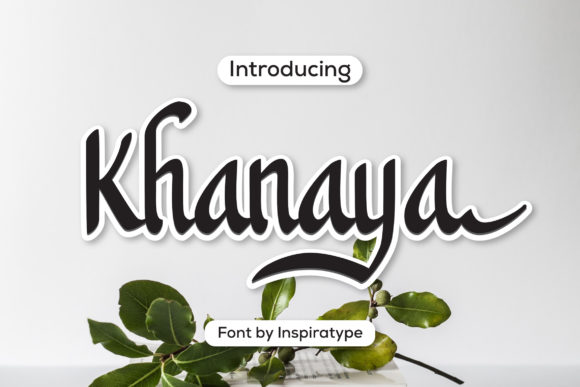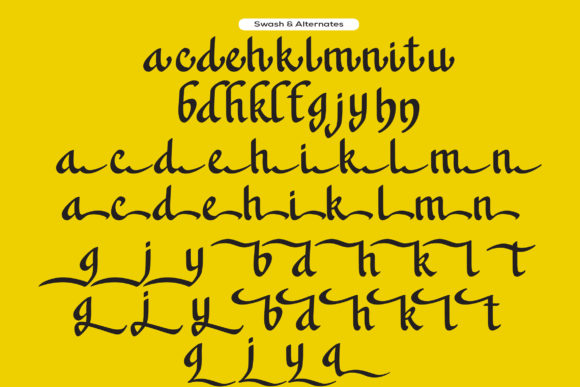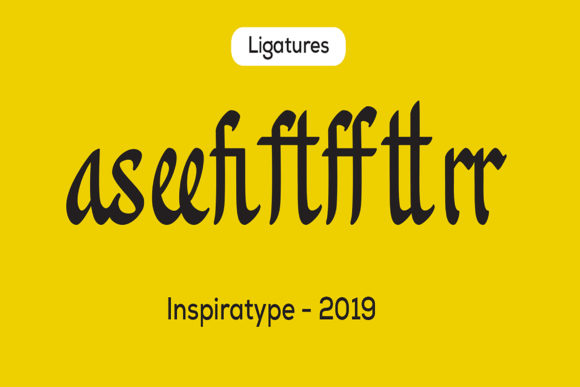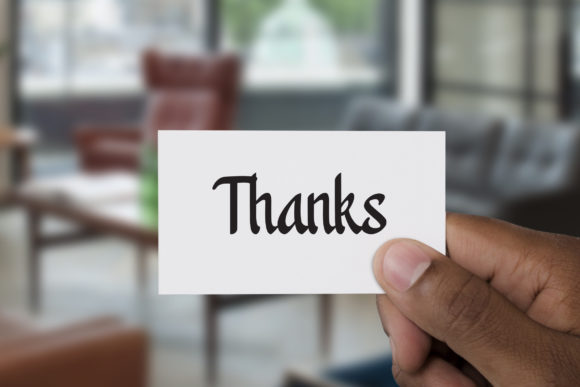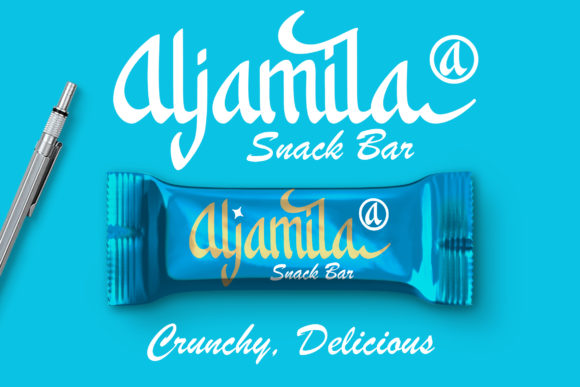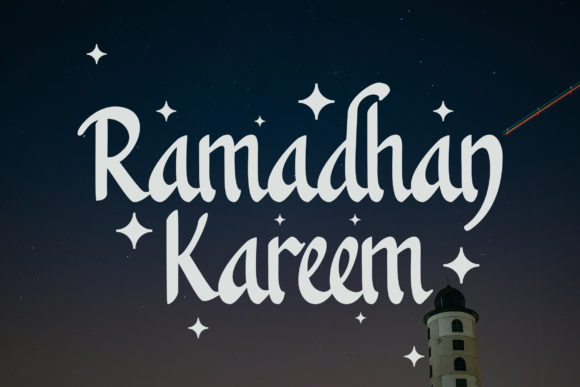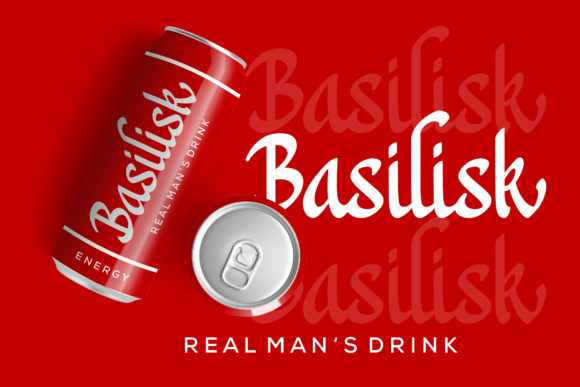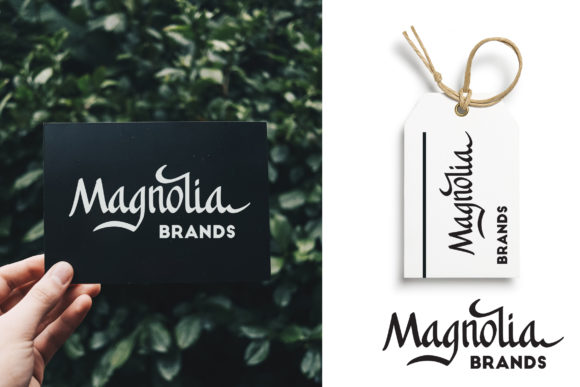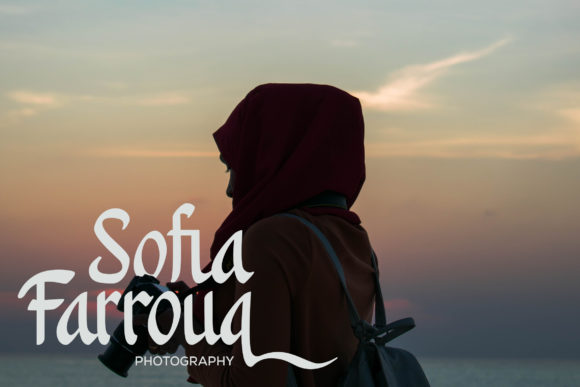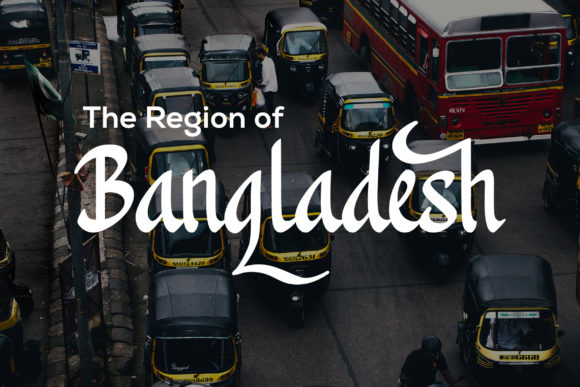
Khanaya Font
About Khanaya Font
Khanaya is a charming handmade script with a bold feel. It will add an adventurous and dynamic feel to any design idea!